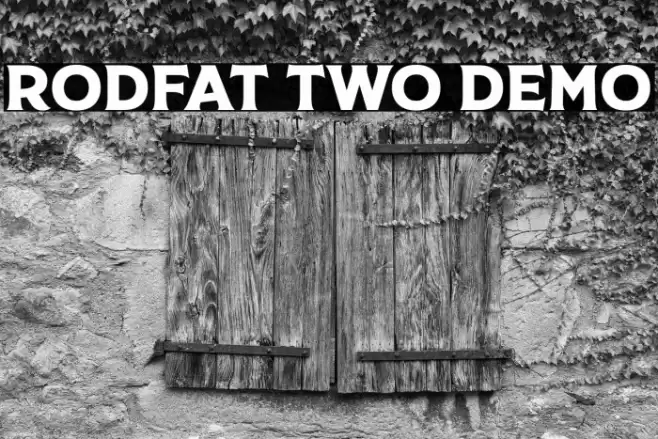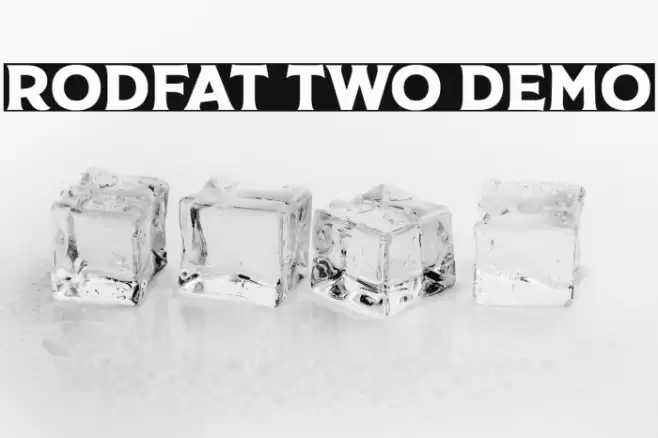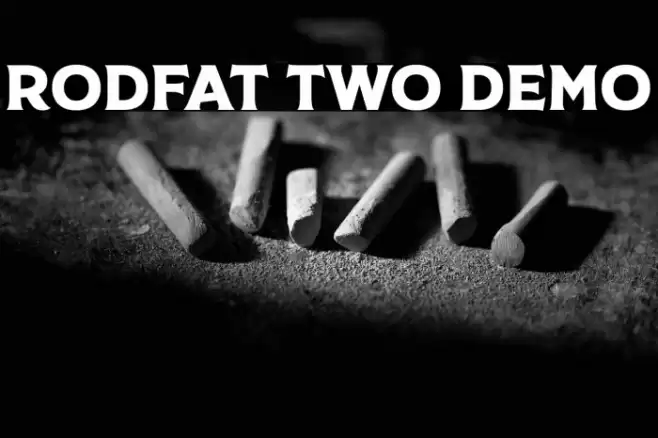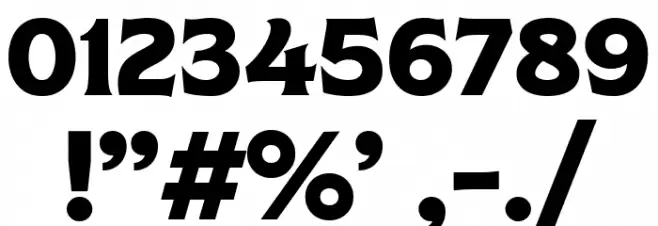
Rodfat Two Demo Font
Rodfat Two Demo Description
This font features bold, dynamic characters with a strong presence. The uppercase letters are robust and slightly condensed, giving a sense of power and stability. The lowercase letters maintain the same boldness, ensuring consistency across text. The numerals are equally bold, with a slight slant that adds a touch of movement and energy. Special characters are designed with the same bold style, ensuring they stand out. The overall design is modern and impactful, making it suitable for attention-grabbing headlines and logos.
A bold, dynamic font with a strong, modern presence from Regular fonts.
- Proposed Projects: Ideal for branding, advertising, and headline creation where a strong, impactful statement is needed.